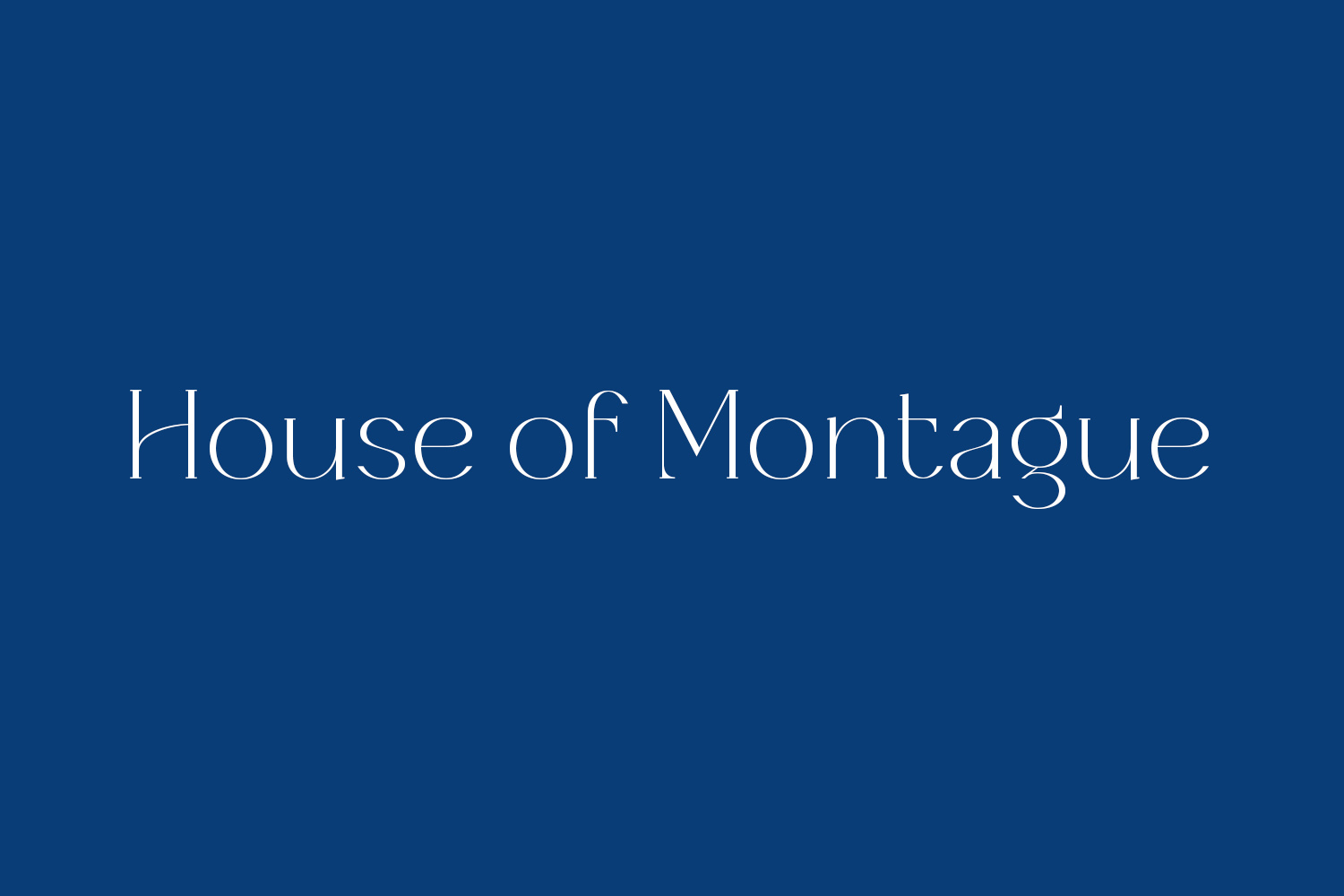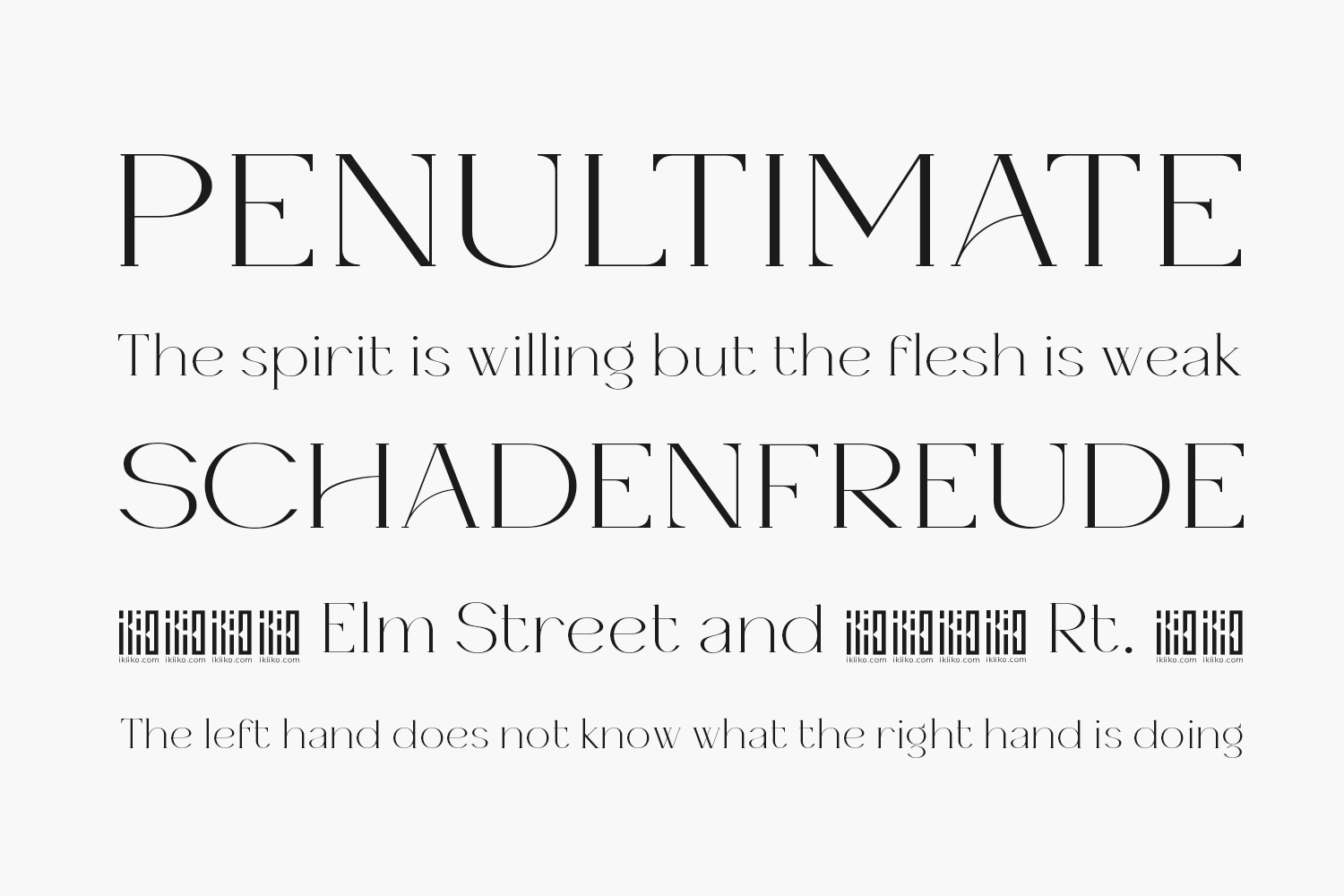
House of Montague Free Font presents a duo of fonts meticulously crafted to harmonize seamlessly. Whether used together or individually, these fonts bring a stylish and refined touch to your creative projects. House of Montague Free Font was designed by Ikiiko Type is a demo and free for personal use only. Please purchase the full version for commercial use.